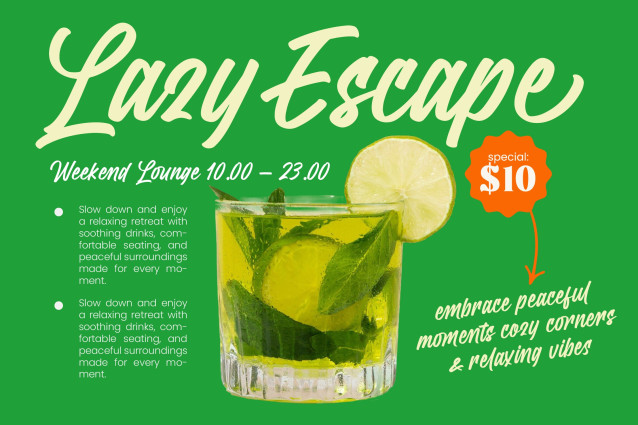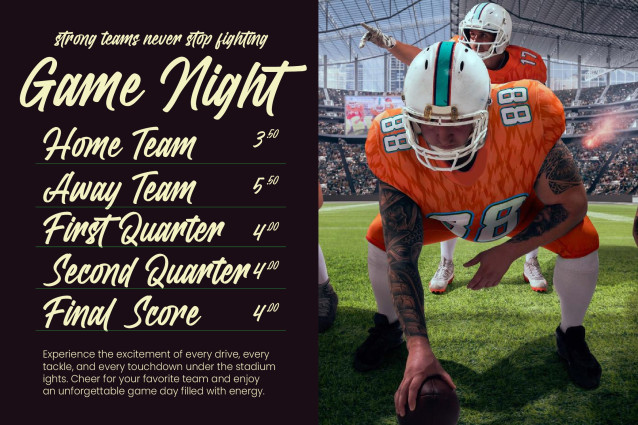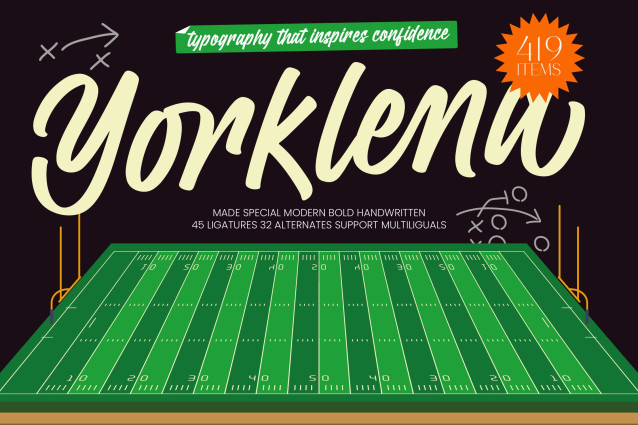
Yorklend – Modern Bold Handwritten Font
Yorklend – Modern Bold Handwritten
Elevate your creative vision with Yorklend – Modern Bold Handwritten, a powerhouse typeface that masterfully blends raw energy with refined calligraphy. This font captures the essence of confident brush strokes, offering a dynamic rhythm that instantly commands attention on any digital or physical canvas. Designed for those who seek a bold visual impact, Yorklend – Modern Bold Handwritten provides a premium aesthetic that feels both personal and high-performance.
Engineered for maximum brand visibility, this typeface is the perfect choice for sports branding, luxury lifestyle packaging, and high-end editorial design. Whether you are developing iconic logos, vibrant social media graphics, or exclusive merchandise, Yorklend – Modern Bold Handwritten delivers a bespoke feel that resonates with modern audiences. Its bold weight and fluid movement make it ideal for dynamic headlines that need to stand out against competitive market clutter.